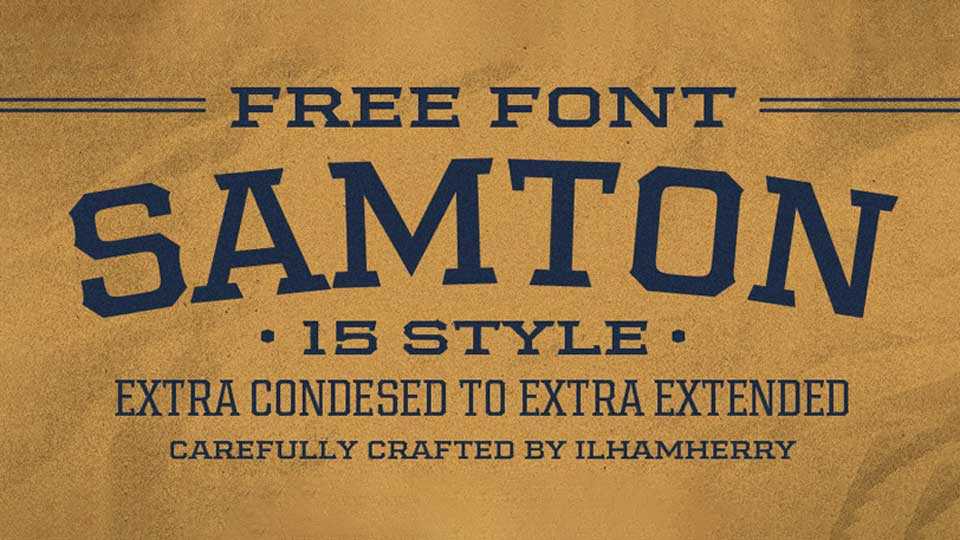
Download Samton typeface, a slab serif font family with a vintage look. Samton comes with 15 styles from Extra Condensed to Extra Expanded, including a basic latin character set.
Designer: Ilham Herry